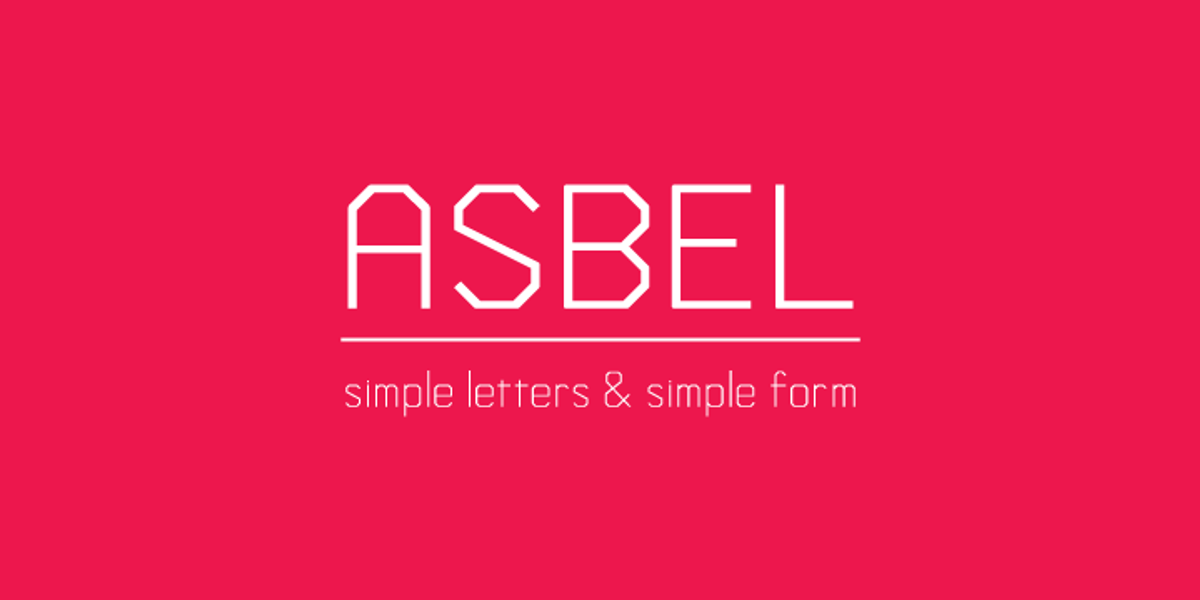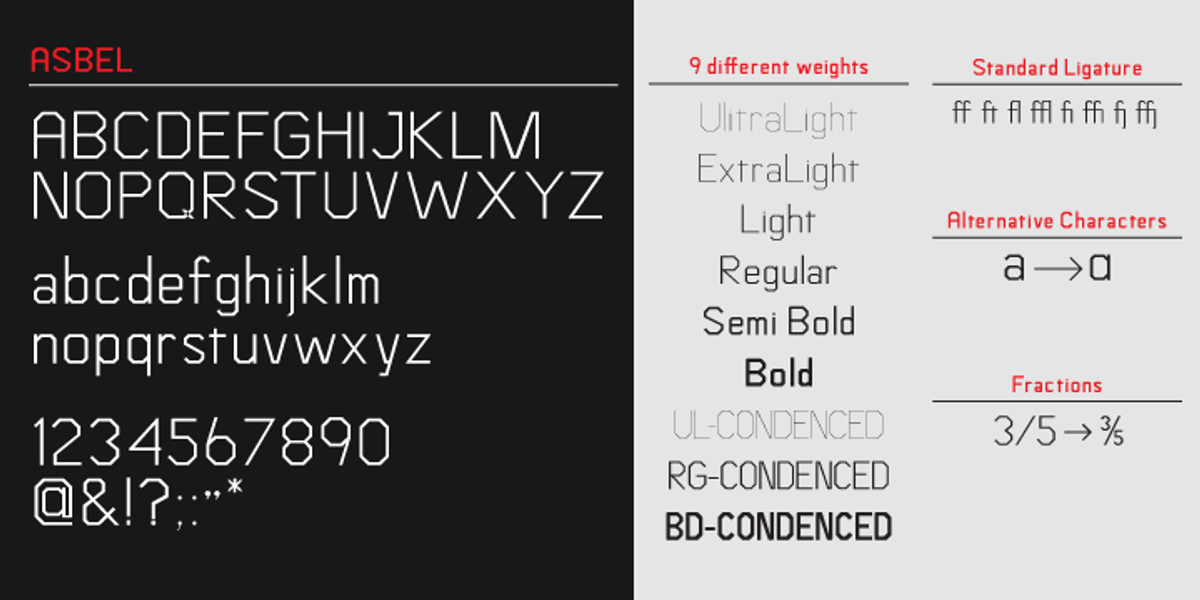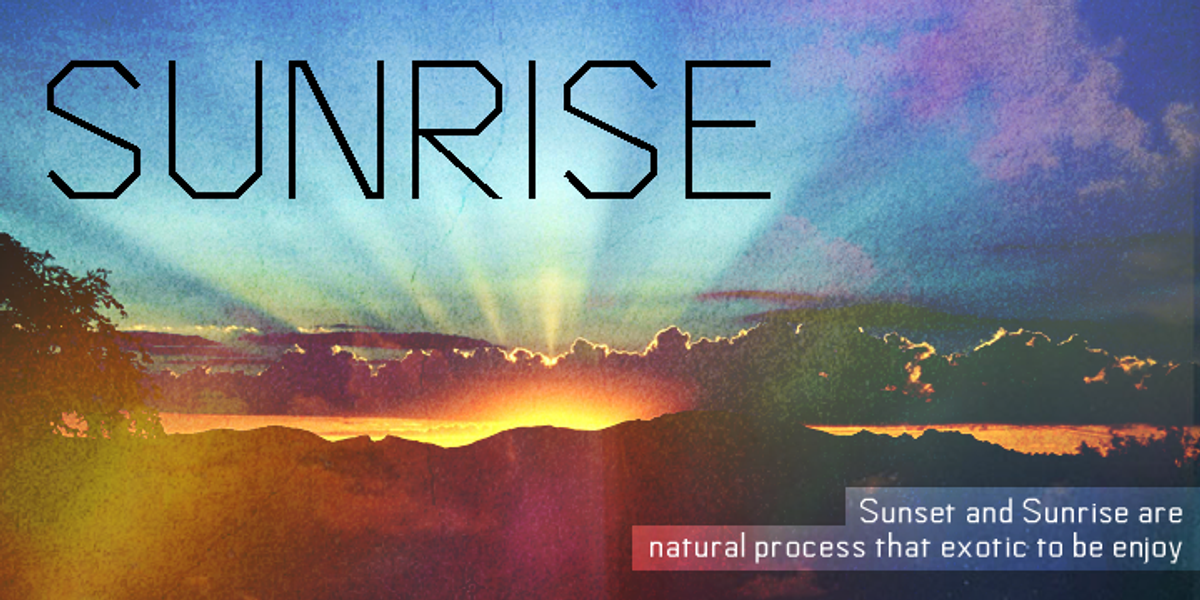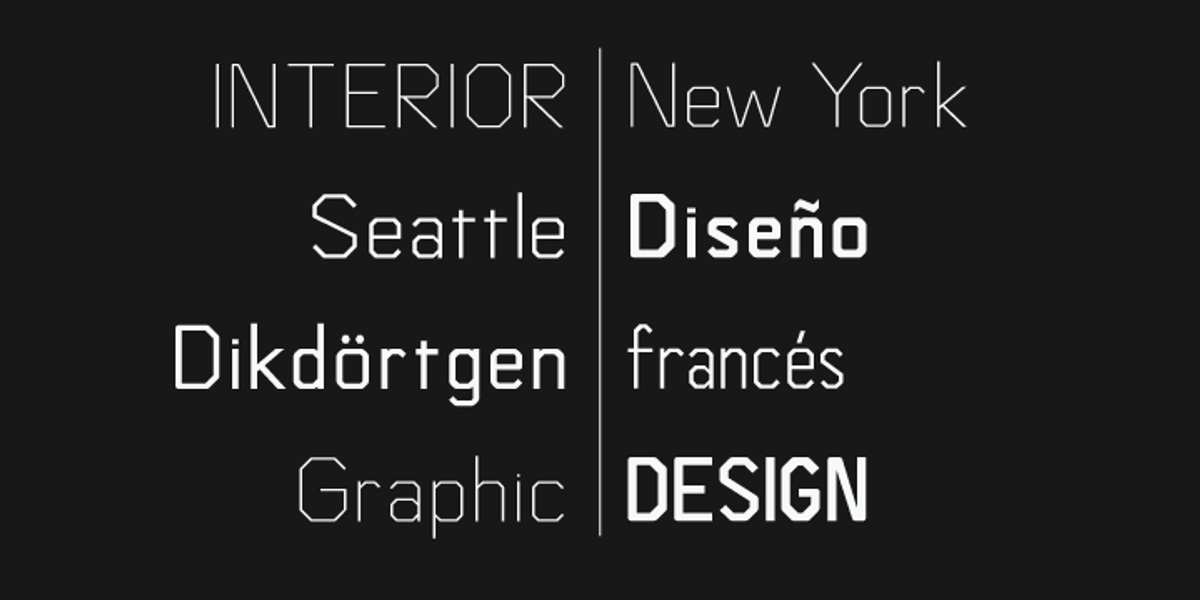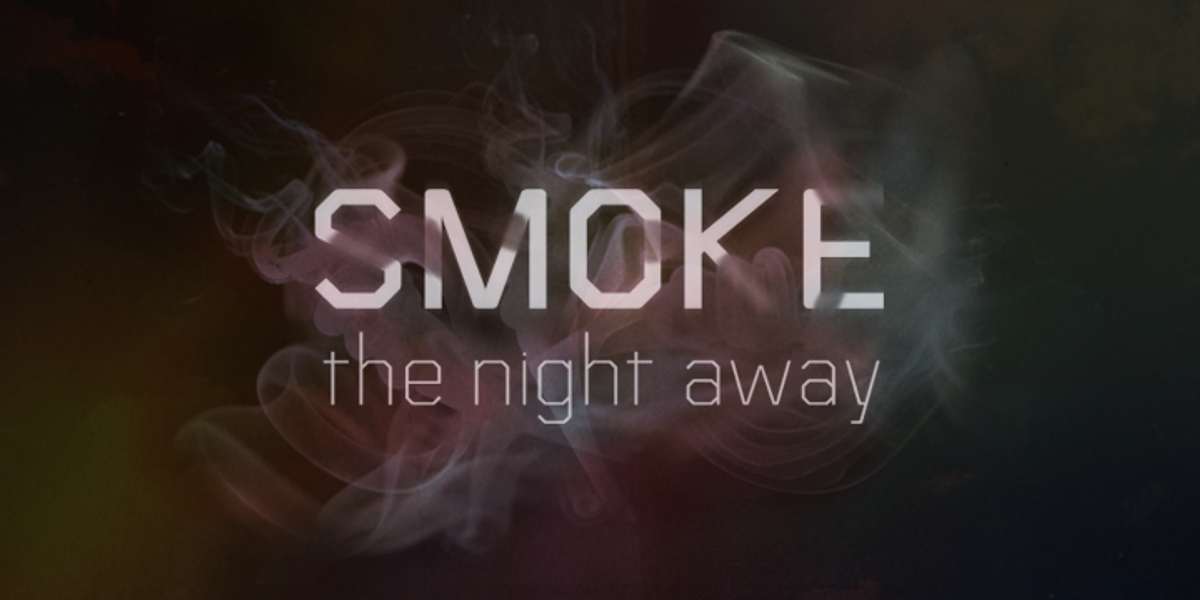
Asbel
Asbel is a geometric sans-serif font designed with simplicity in mind. Its rectangular shapes and modern aesthetic make it suitable for titling, posters, and advertising.